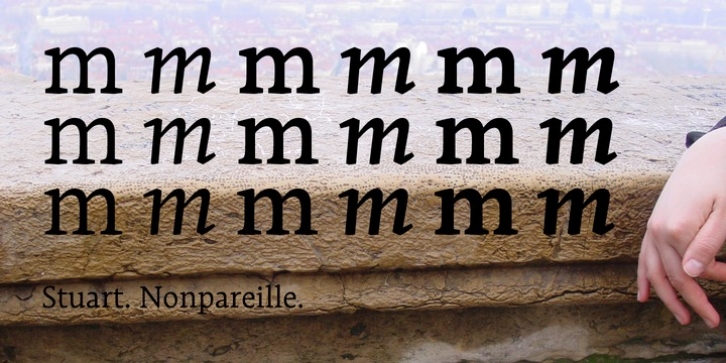
Punchcutters (when types had to be cut, and not just drawn), were working with steel, a strong metal they had to sculpt. They were subject to physical contingencies: each type cast was engraved separatly and, as we move down into the smaller type sizes, the drawing was adapted to new specific data encountered — fine hairlines—hence fragile—need to be reinforced, the curves simplified and the width spacing slightly increased to prevent the ink from clogging up the composition. So, each body size had its own drawing, mostly given by merely physical limits relating to the dexterity and eyesight of the punchcutter… and of the reader, too.
Whereas nowadays it is easier to move from one type size to another, most digital fonts offer us just ONE design, irrespective of the chosen type size. Although computers free us from a lot of the restrictive physical aspects of lead composition, will we not be throwing the baby out with the bathwater and losing an essential subtlety? Where the cutter’s corrections not an integral part of ensuring that a text was properly legible — of its beauty — instead of being no more than a technical defect with which the computer has successfully done away?
The Stuart font restores links to this lost way of doing things by offering three designs for a single font. First of all the Stuart caption, which is suitable for use with type sizes of below 8 points; it has the characteristics of small sizes types: downstrokes and hairlines not particularly marked, wider spacing and solid shapes. On the contrary, at the other end of the scale the Stuart titling, designed for type sizes of over 12 points, has marked downstrokes and hairlines, a narrower width spacing and a certain lightness of shape. Between the two, for type sizes between 8 and 12 points (the most commonly used) there is the Stuart text.
Stuart is designed for graphic design with good resistance for long (in theory literary) texts. Based on a venetian style, with “latin” curves moderated by a strict modernist regularity, it is available for all european languages, and offers a very wide range of signs, like three styles of figures and mathematical signs, small capitals, ligatures, exponent, fractions, etc.
It is available in regular, medium and bold weights, each of them broken down into roman and italic styles.
For the special needs of precision, subtleties and refinements for graphic and book designers, there is also a more complete "pro" version. All the varieties of the standard version are here folded in one single font. It also provided extra ligatures, superiors, inferiors, and fractions that the standard version do not.